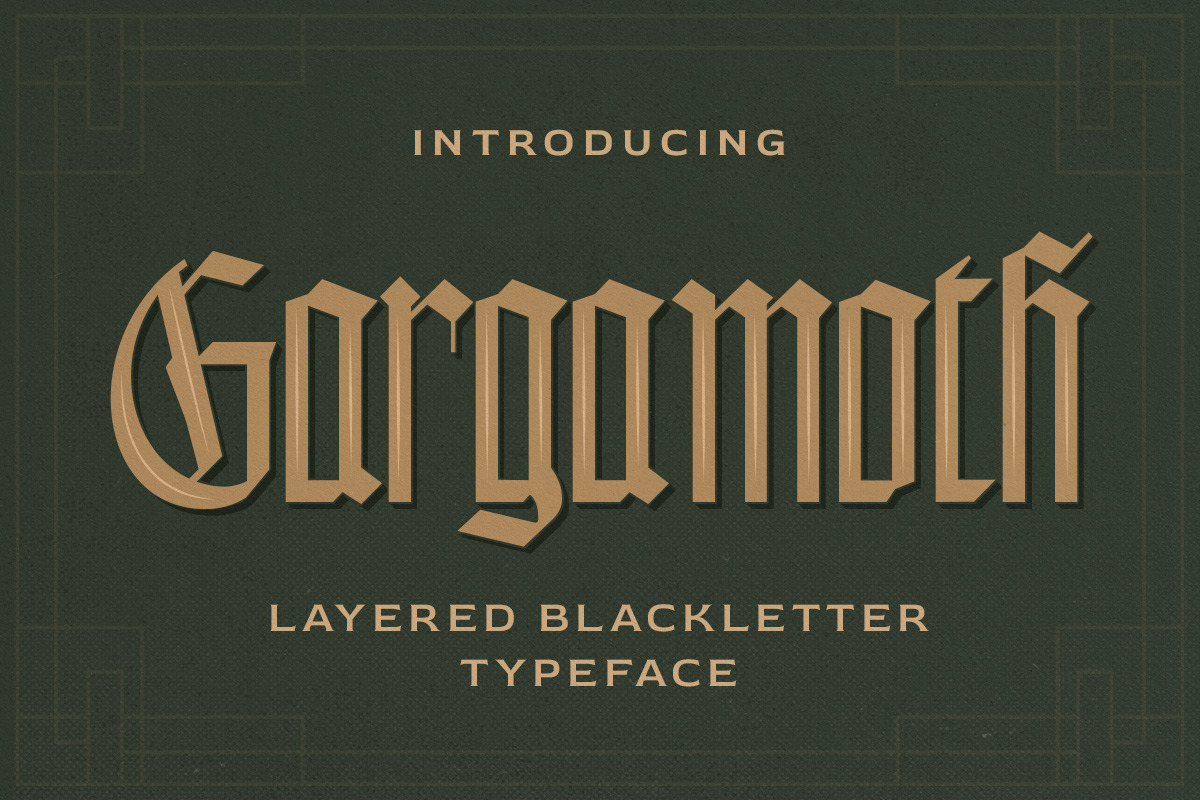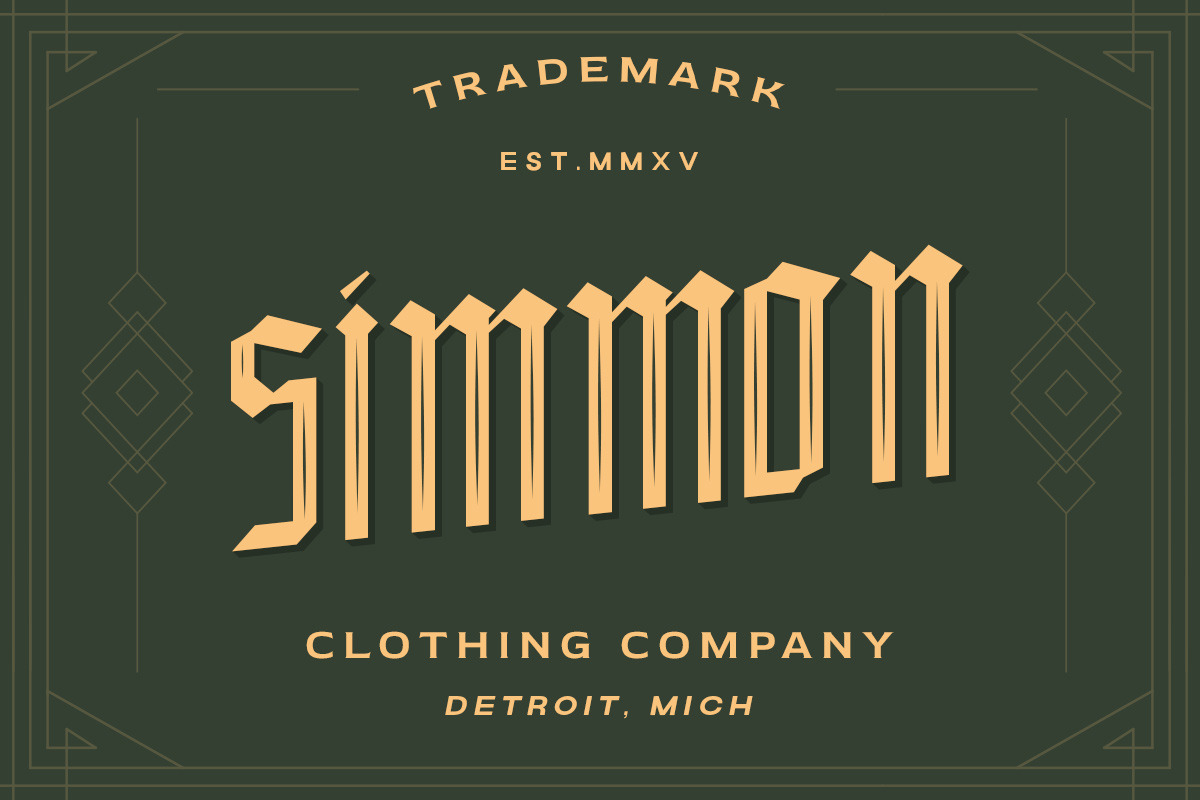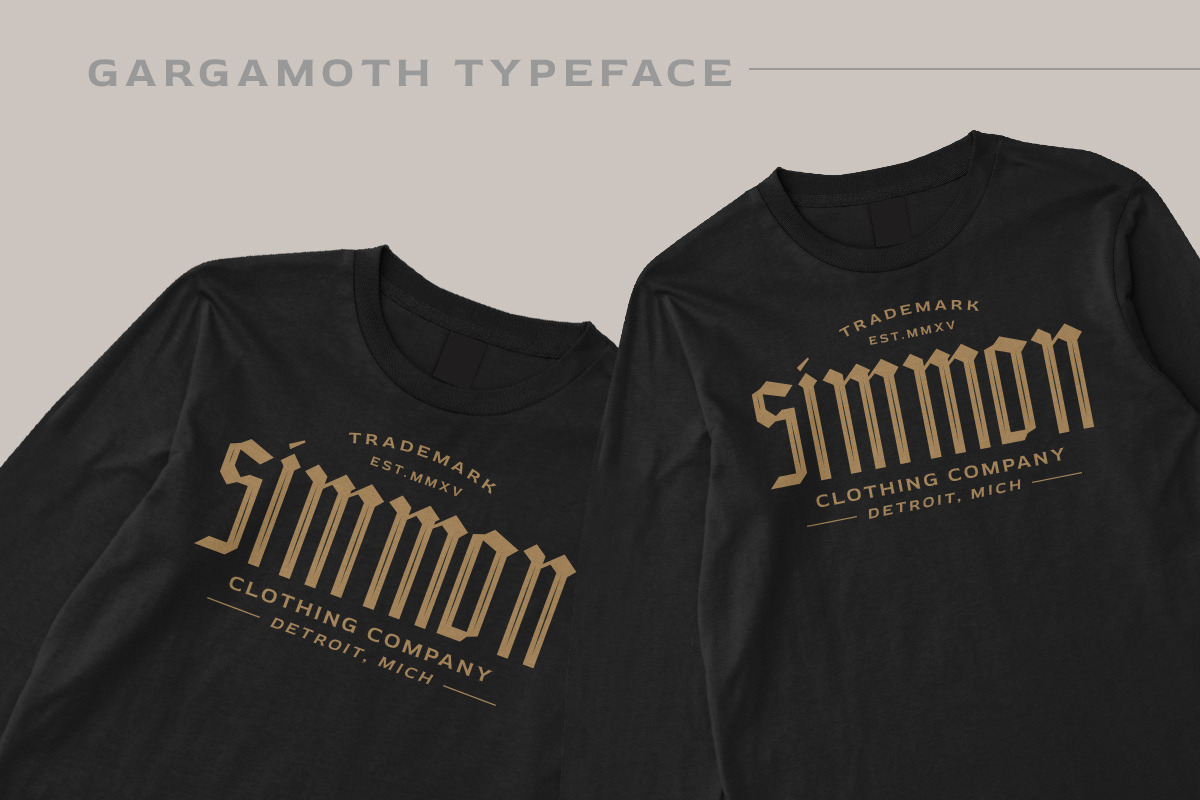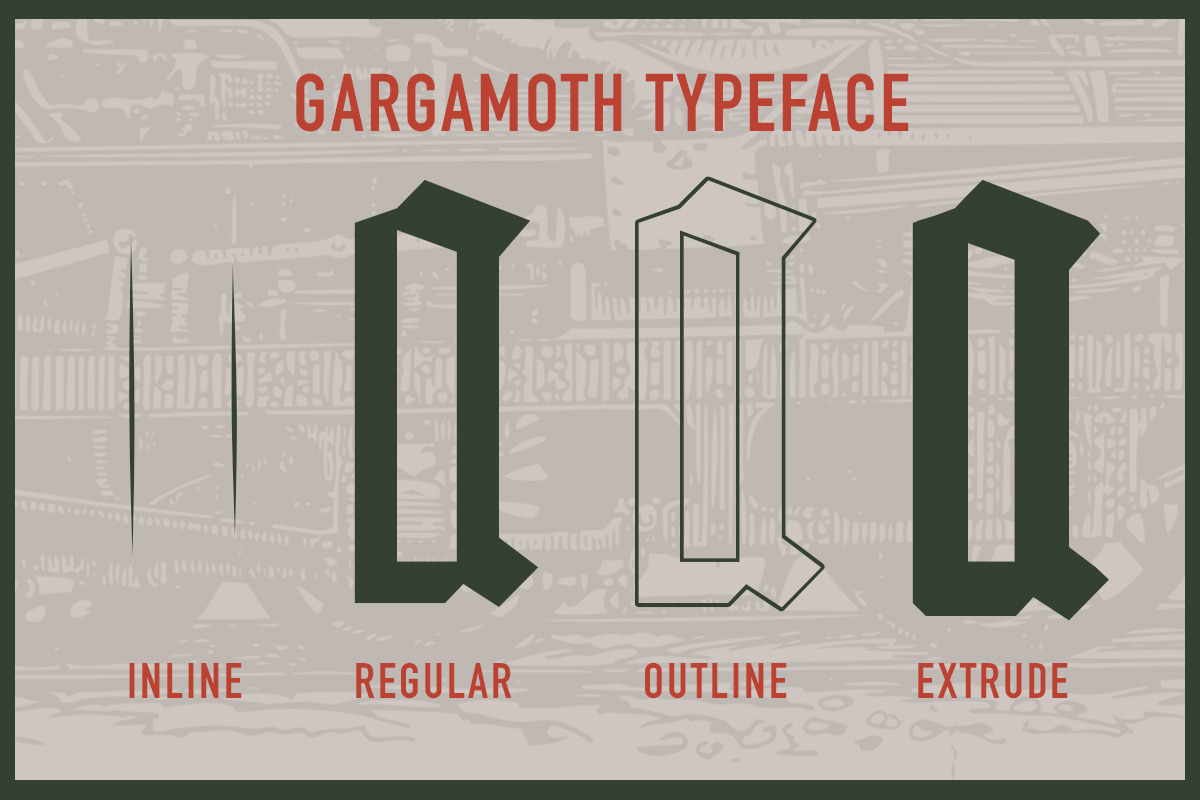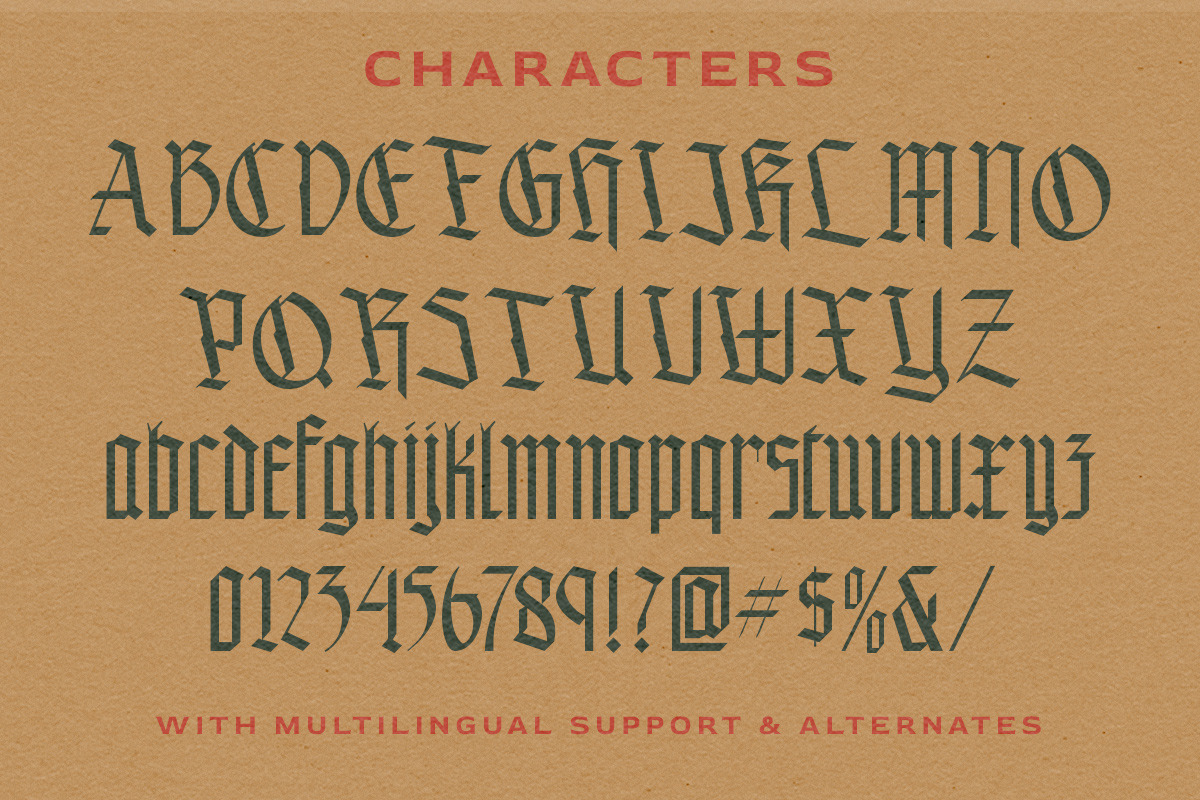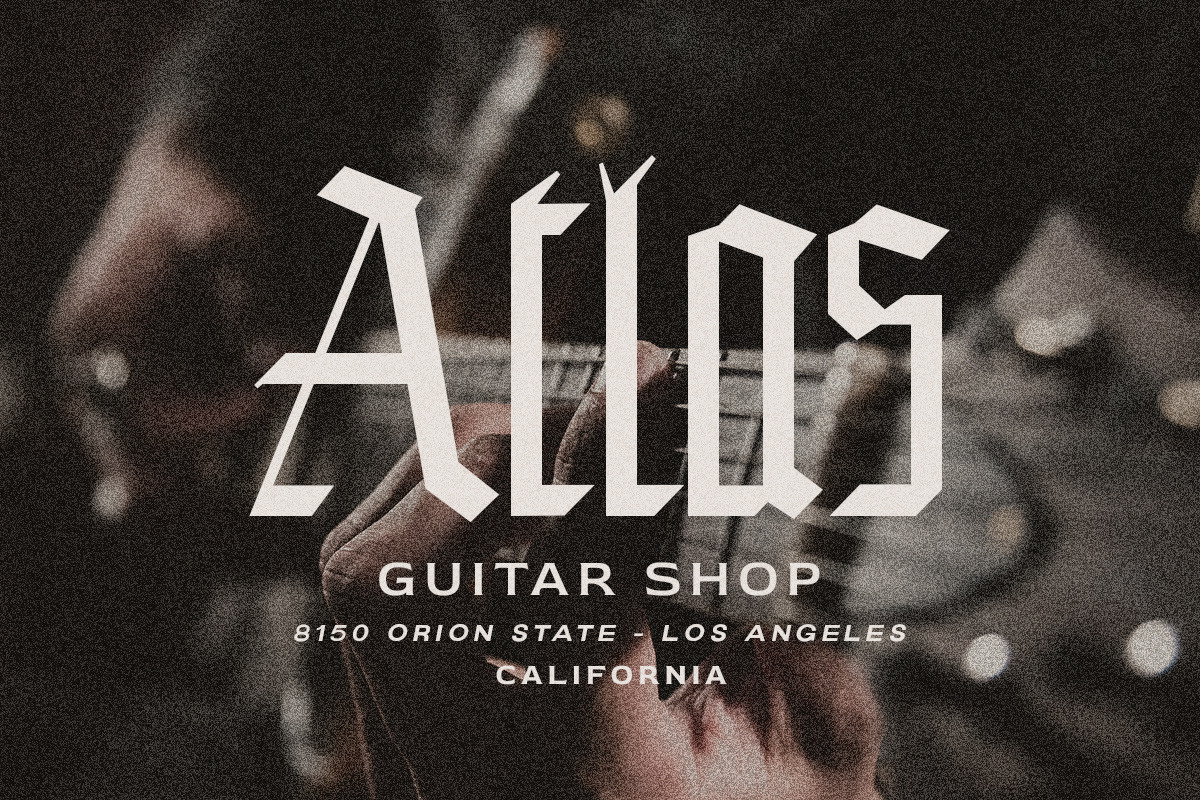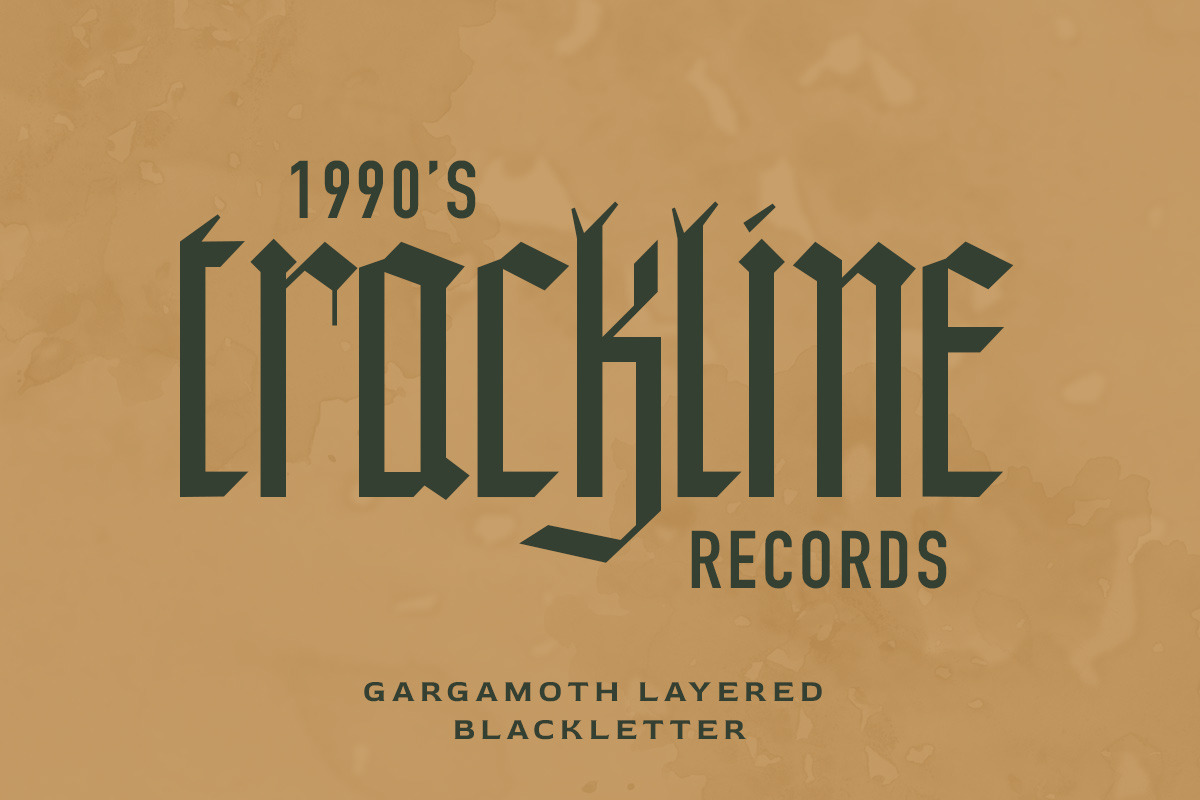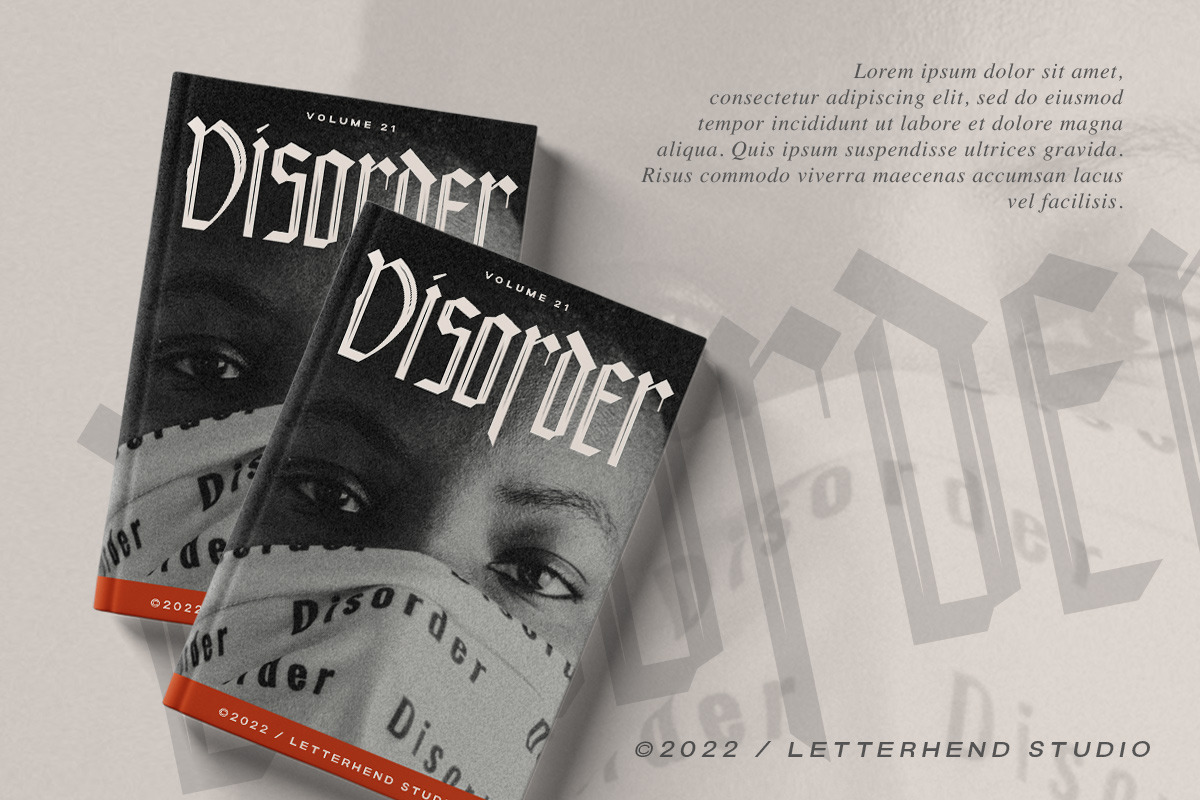
Gargamoth - Blackletter Typeface
Introducing, Gargamoth - A modern blackletter typeface. This type of font perfectly made to be applied especially in logo, and the other various formal forms such as Logo, Clothing, Fashion, Headline, or any type of advertising purpose.
- layered fonts
- stylistic alternate